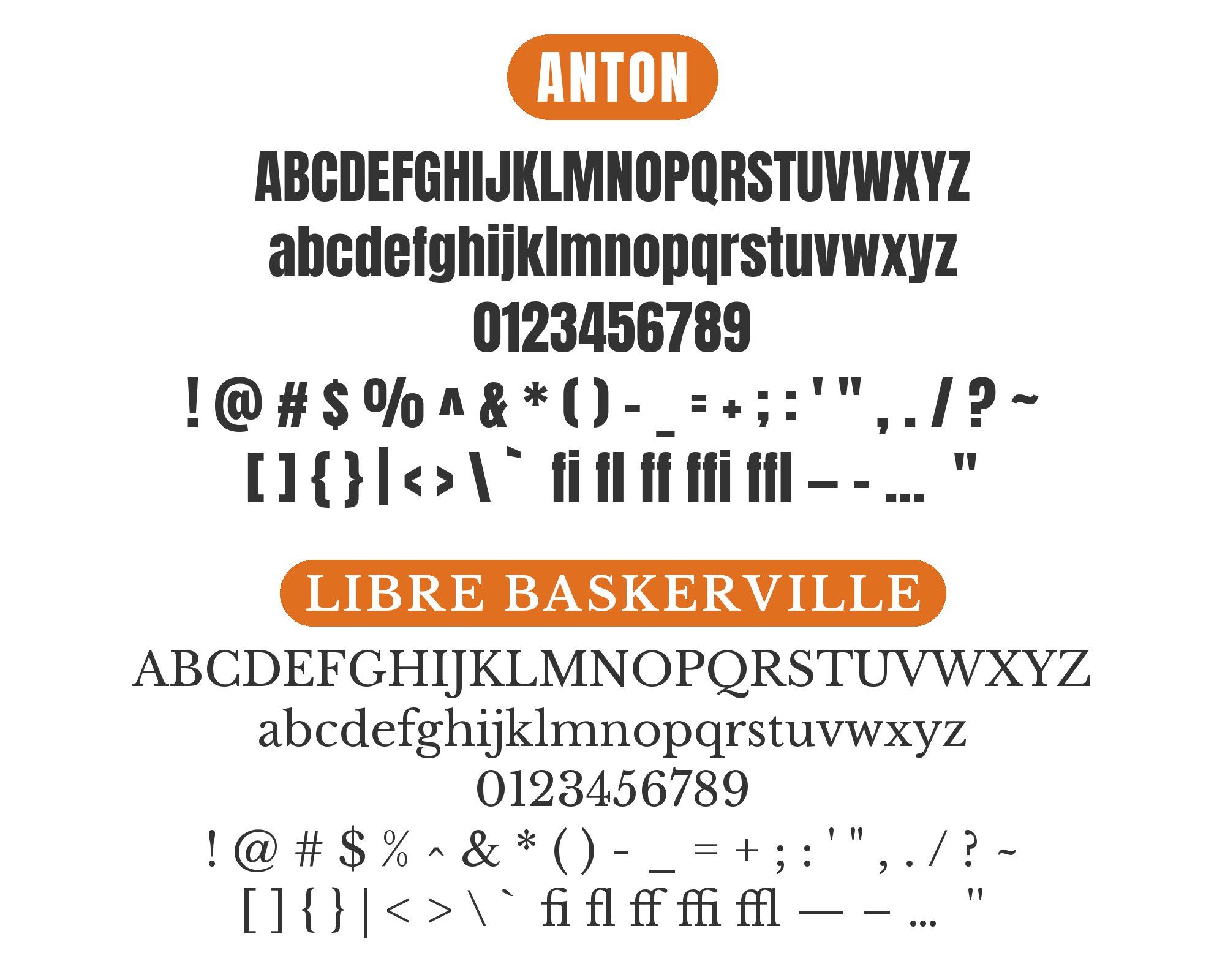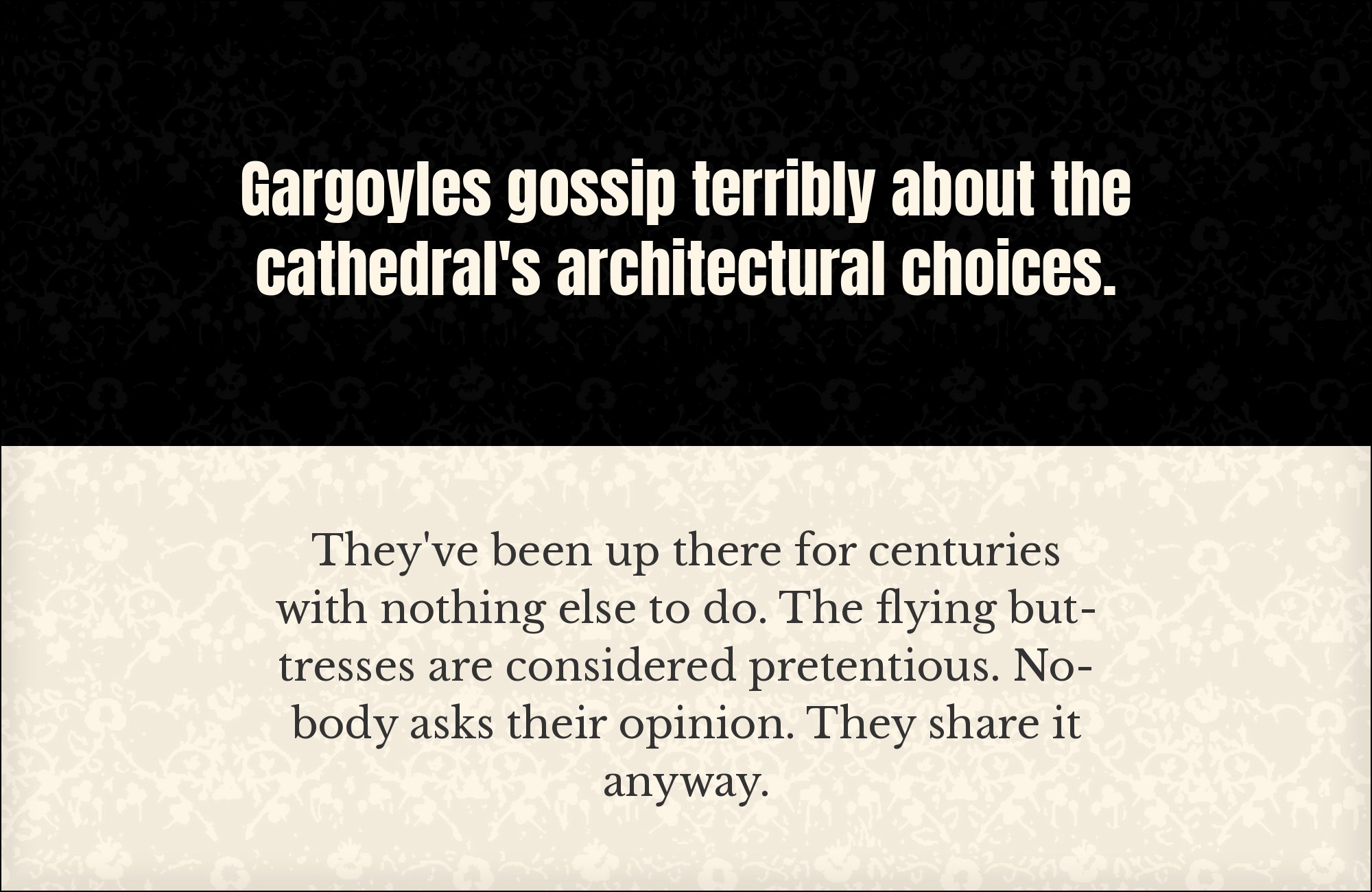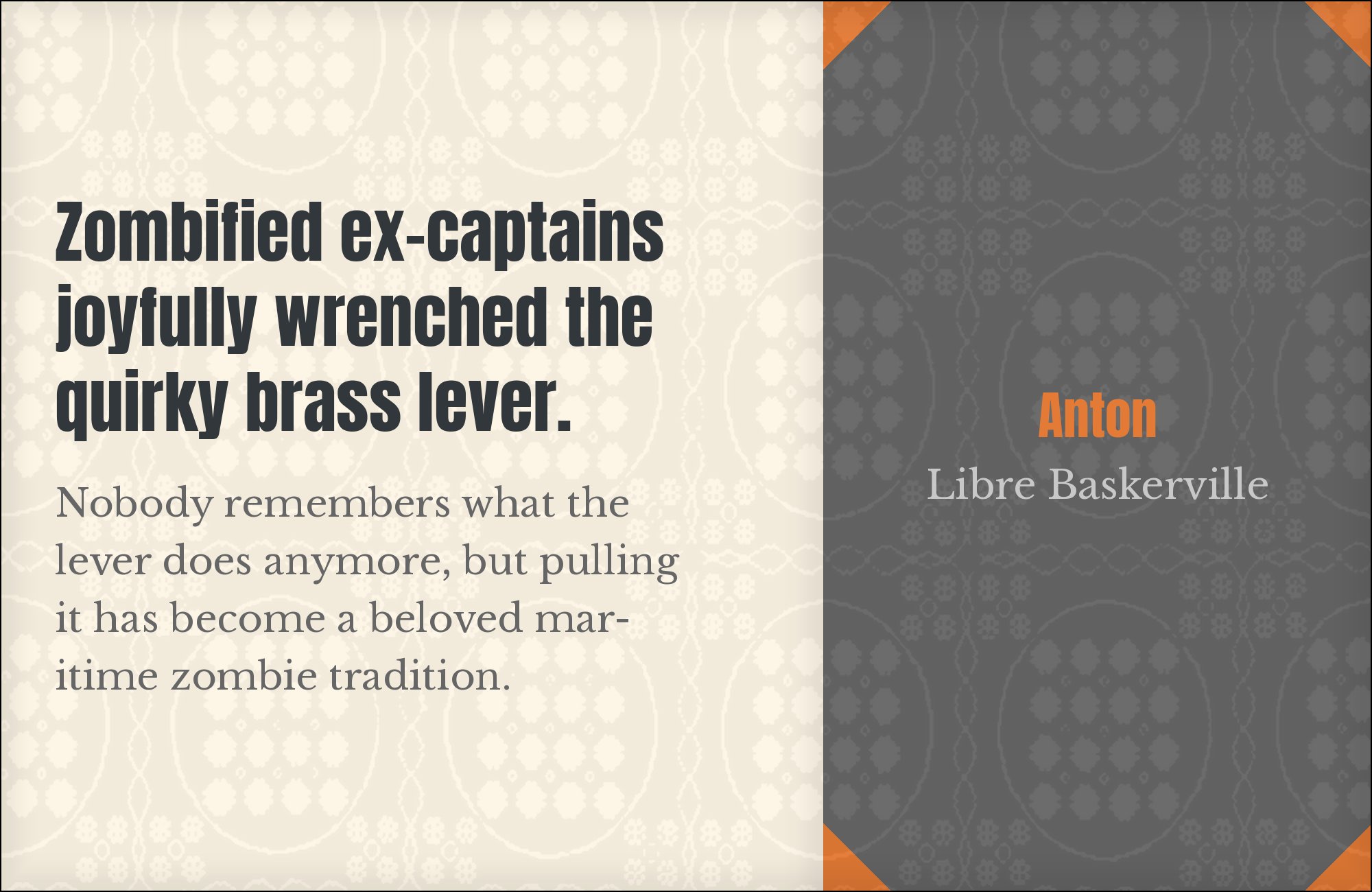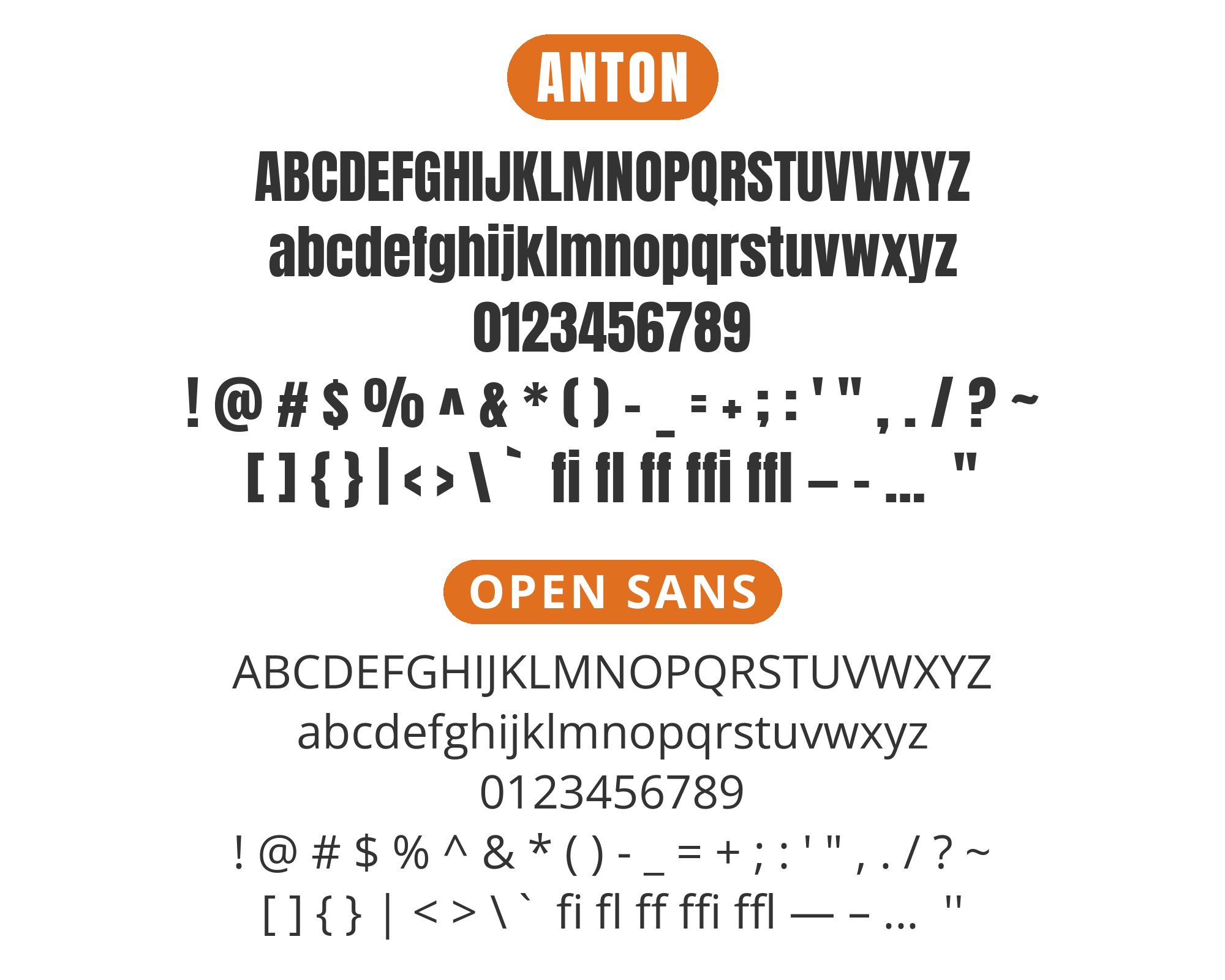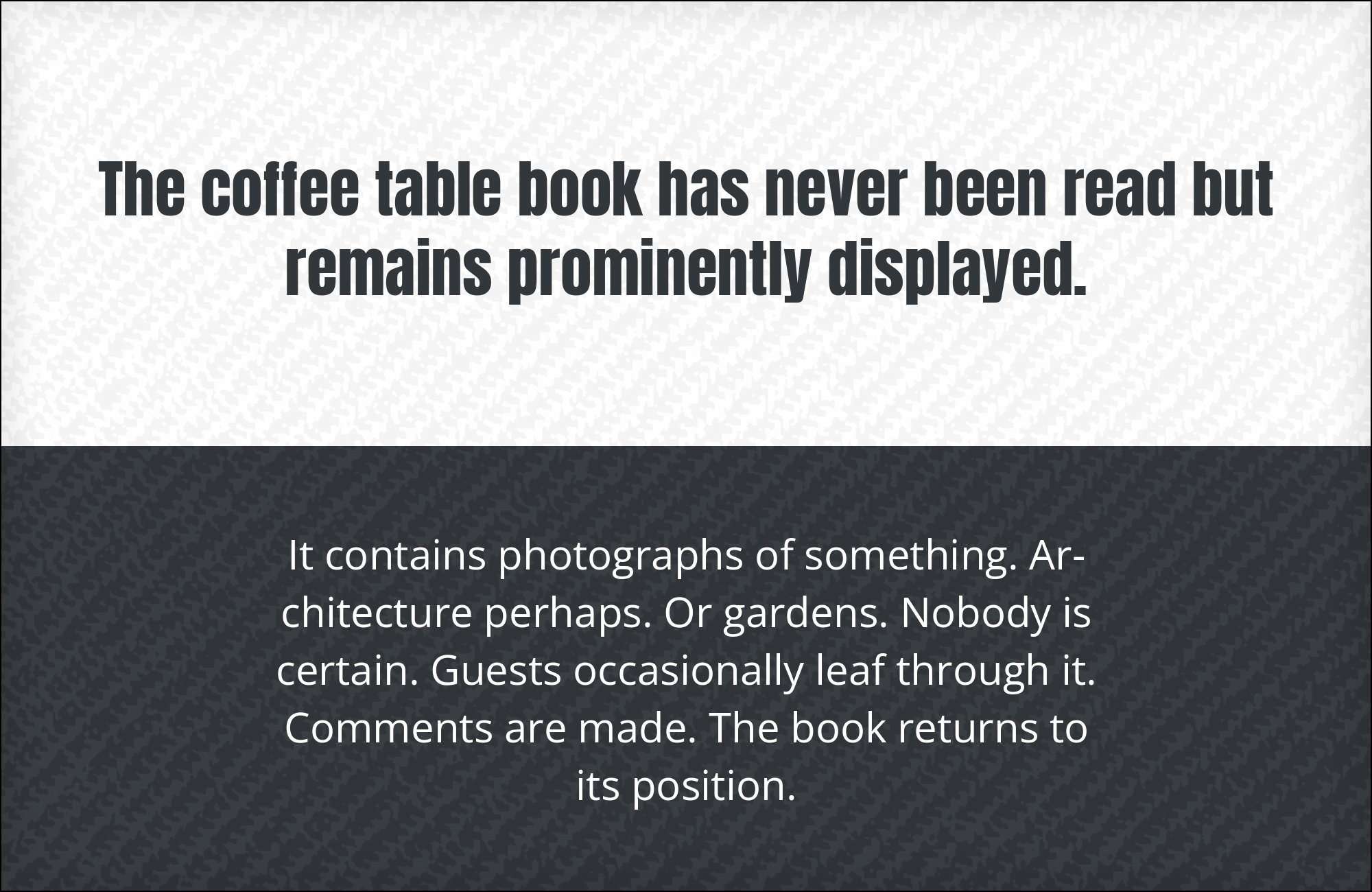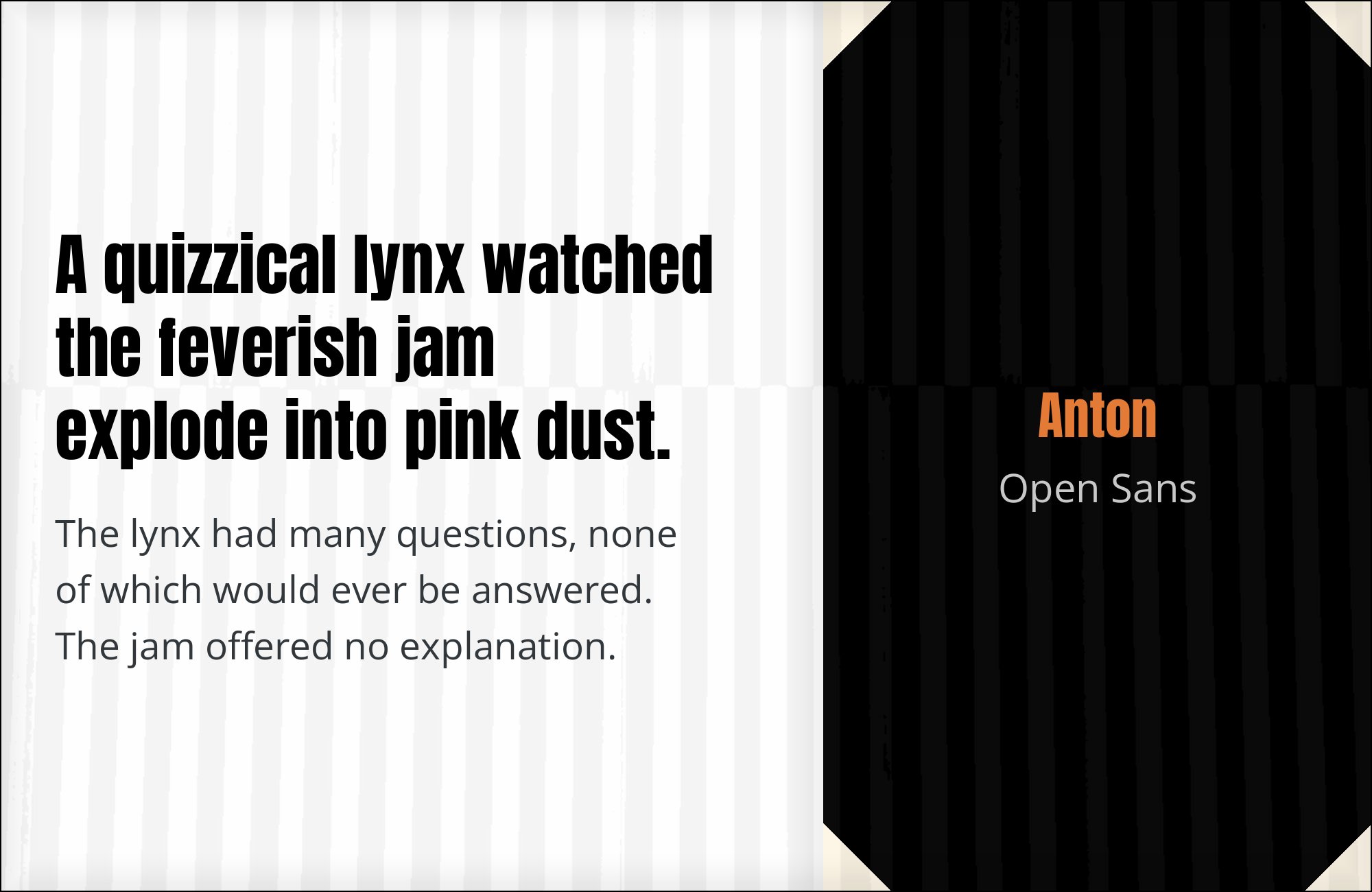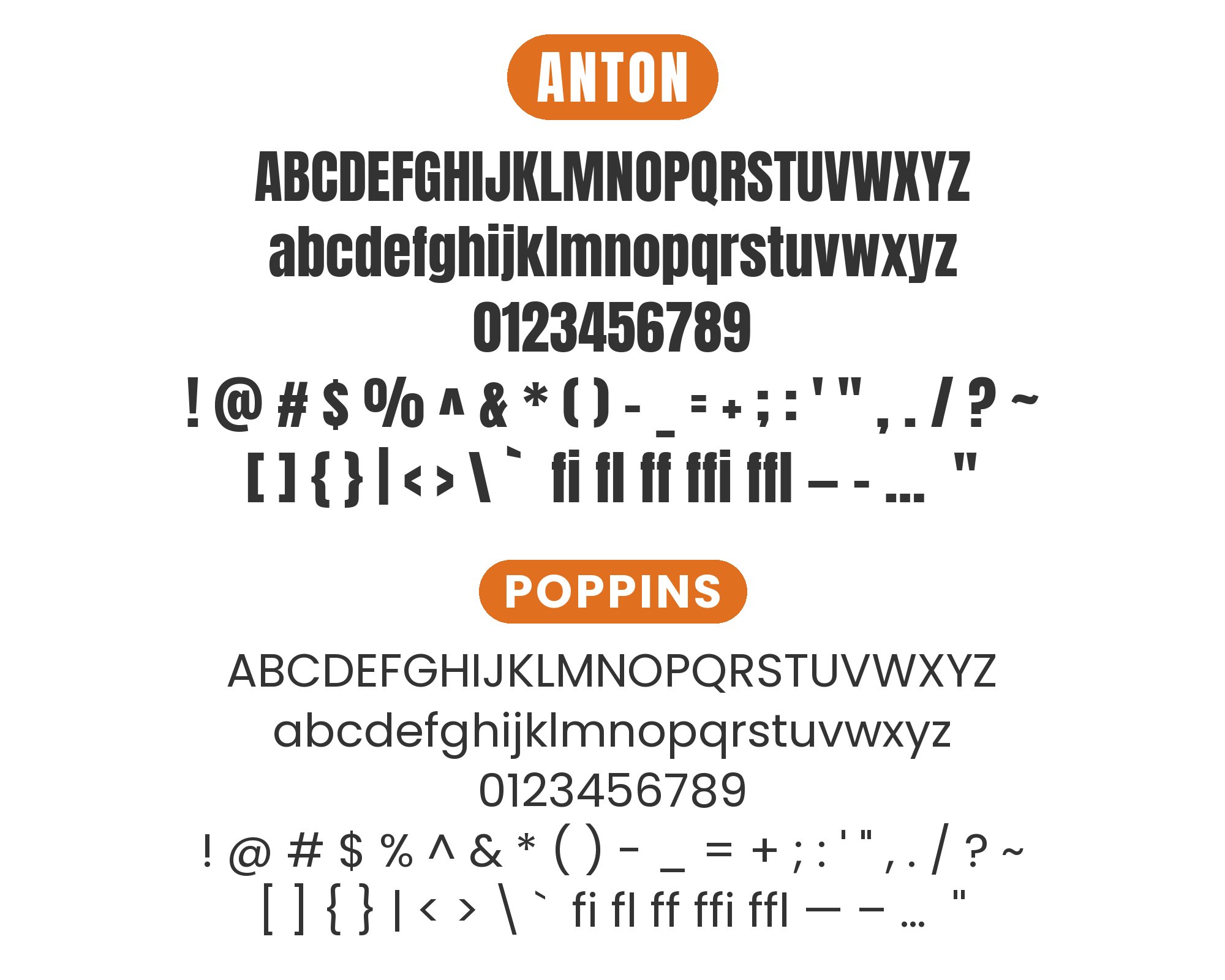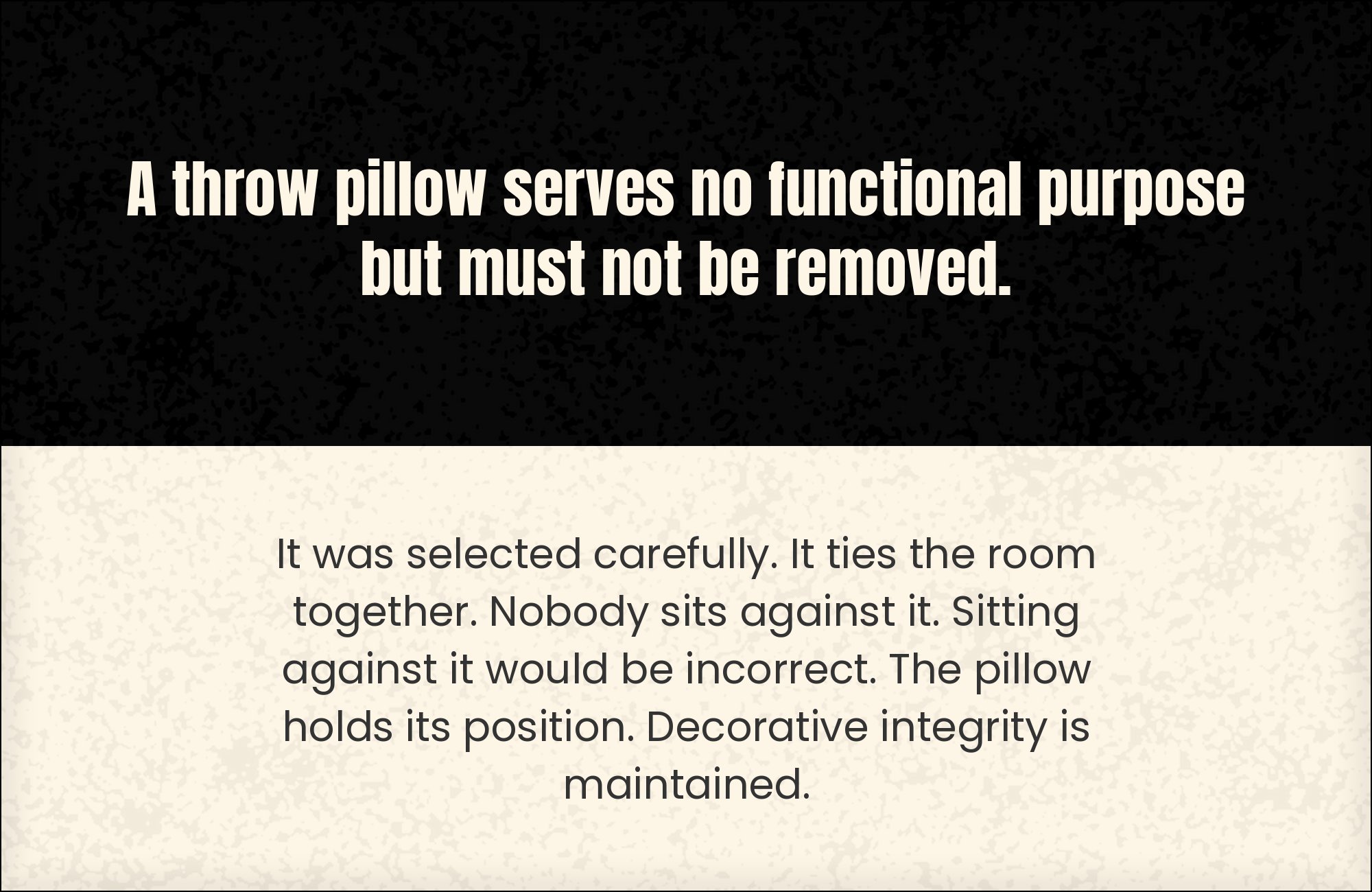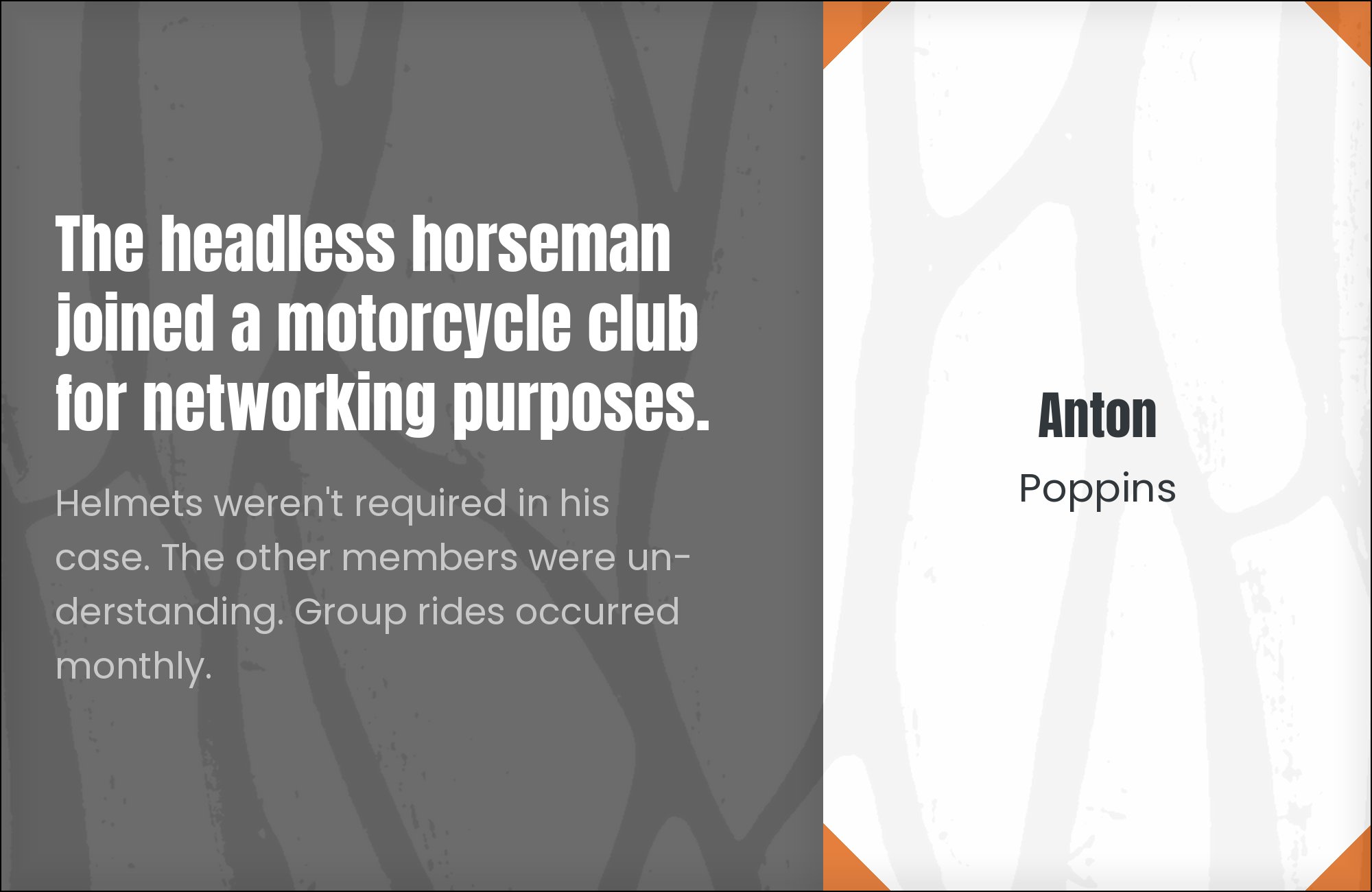
What Fonts Go With Anton?
Anton pairs great with Libre Baskerville, Work Sans and Open Sans. All 5 pairings are shown below in real rendered specimens, with the reason each one works.
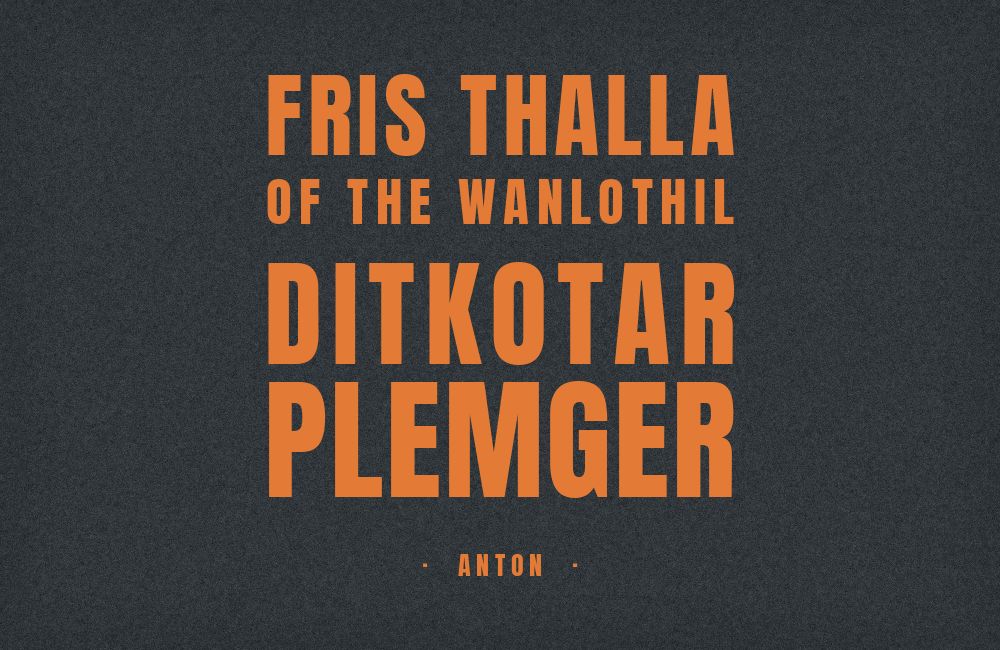
Anton type specimen
Almost nothing pairs with Anton, and that is by design. It is a free reworking of a traditional advertising sans serif, and Typewolf lists Impact as its closest relative: a single-weight grotesque built to fill a headline and nothing else. Below are the faces that actually hold up beside it, the split found across real sites and curated advice, and what to use instead if a project needs a full type system rather than one loud line.
Why Anton resists pairing
Anton is described in its own project documentation as a reworking of a traditional advertising sans-serif, digitized and opened up for display use on the web. It ships as one weight and one width, with no lighter or bolder sibling to build a hierarchy against. Its ascenders and descenders are only just taller than the rest of its letters, because its x-height is extremely tall, which is part of what makes it read as pure block weight rather than a normal alphabet. Like Impact, it offers nothing to react against from inside its own family, so every pairing has to import contrast, hierarchy, and readability from somewhere else entirely.
Font Pairings for Anton
1. Libre Baskerville
2. Work Sans
3. Open Sans
4. Poppins
5. Roboto
1. Libre Baskerville
Anton and Libre Baskerville font pairing: Anton headline with Libre Baskerville body text
Anton’s ultra-condensed, block-heavy caps need a text face that will not compete for attention. Libre Baskerville’s moderate contrast, generous x-height, and slight old-style warmth keep long-form copy calm and readable underneath a headline that is already doing all the shouting. This is Typewolf’s own curated suggestion, and it is the one recommendation in this list that reaches for typographic contrast rather than a matching sans — a serif under a grotesque, the classic split. It works best where the body text needs to feel considered rather than purely functional.
Character specimen: Anton (heading) and Libre Baskerville (body) letters, numbers and symbols side by side
2. Work Sans
Anton and Work Sans font pairing: Anton headline with Work Sans body text
Both Anton and Work Sans are grotesque-family sans serifs, so this pairing stays in one visual register instead of mixing serif and sans. Work Sans’s lower contrast and more open counters read as the quiet version of the same idea: Anton compresses and shouts, Work Sans relaxes and explains. This combination has been seen in production: Typewolf lists Made of Millions, dated 19 October 2018, using Anton with Work Sans. It is a safe, workmanlike pairing rather than an inspired one, and that consistency is the whole point.
Character specimen: Anton (heading) and Work Sans (body) letters, numbers and symbols side by side
3. Open Sans
Anton and Open Sans font pairing: Anton headline with Open Sans body text
Open Sans is a workhorse humanist sans with strong small-size screen legibility, and real sites pair it with Anton for navigation and paragraph text for one simple reason: it disappears next to Anton’s compressed caps. Loud display, neutral body — the oldest trick in the book, documented here on a live production site rather than a curated recommendation. It barely counts as a design choice so much as a default, which is exactly why it shows up repeatedly wherever Anton is used for real.
Character specimen: Anton (heading) and Open Sans (body) letters, numbers and symbols side by side
4. Poppins
Anton and Poppins font pairing: Anton headline with Poppins body text
Poppins is geometric, built from true circles, which contrasts structurally with Anton’s condensed grotesque skeleton rather than just differing in weight. On a real pharmacy site found in the research, Poppins carries UI and body text while Anton takes the headline, cleanly separating geometric roundness from industrial compression. The pairing works because the contrast is structural rather than merely stylistic, though it is a subtler difference than most readers will consciously notice — it registers as “this looks fine” rather than “this looks considered.”
Character specimen: Anton (heading) and Poppins (body) letters, numbers and symbols side by side
5. Roboto